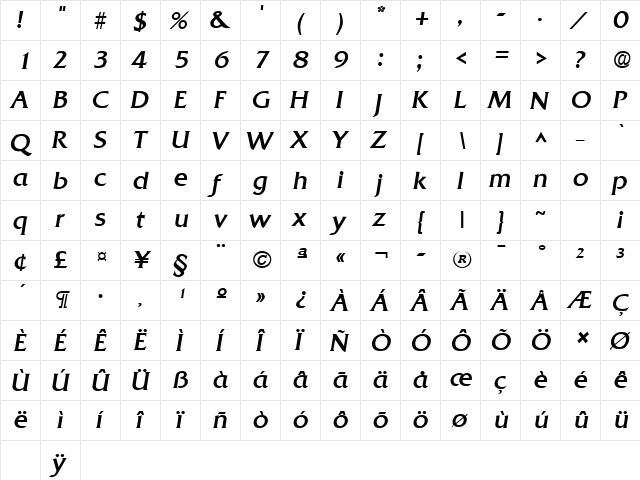
Quadrat Bold Italic
Design Context for Quadrat Typeface
Quadrat offers clean, dependable letterforms without strong stylistic allegiance, making it a practical choice for designers who need flexibility. The dynamic lean of this cut emphasises speed and emphasis in any layout. Its bold stroke weight gives it real presence on the page.
Pro Tip: Use Quadrat for emphasis, pull quotes, and subheadings where its slanted energy can add rhythm to the layout.